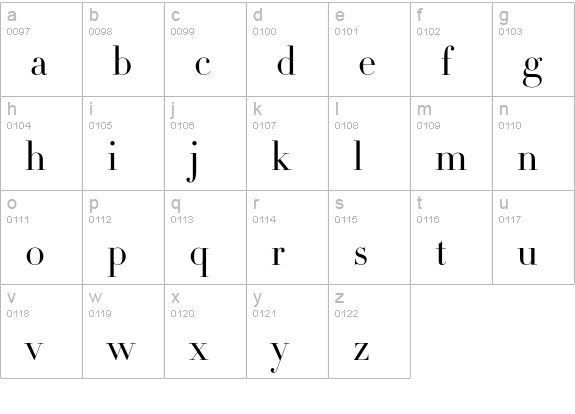
Didot-HTF-L24-Light is a refined, elegant variant in the Didot typeface family \xE2\x80\x94 well suited to elegant body text, refined sub-headings, and luxury branding.
Didot-HTF-L24-Light is a sophisticated and elegant font that exudes a sense of refinement and class. Its thin, delicate lines and high contrast between thick and thin strokes create a timeless and luxurious look that is perfect for high-end design projects. This font is ideal for creating invitations, branding materials, and editorial designs that require a touch of sophistication. What sets Didot-HTF-L24-Light apart is its versatility and readability, making it suitable for a wide range of applications. Whether you are designing a wedding invitation, a fashion magazine spread, or a luxury brand logo, this font will add a touch of elegance and sophistication to your project. The best part is that Didot-HTF-L24-Light is available for free download at FontsMarket.com. Now you can elevate your design projects with this exquisite font without breaking the bank. Download Didot-HTF-L24-Light today and add a touch of luxury to your designs.